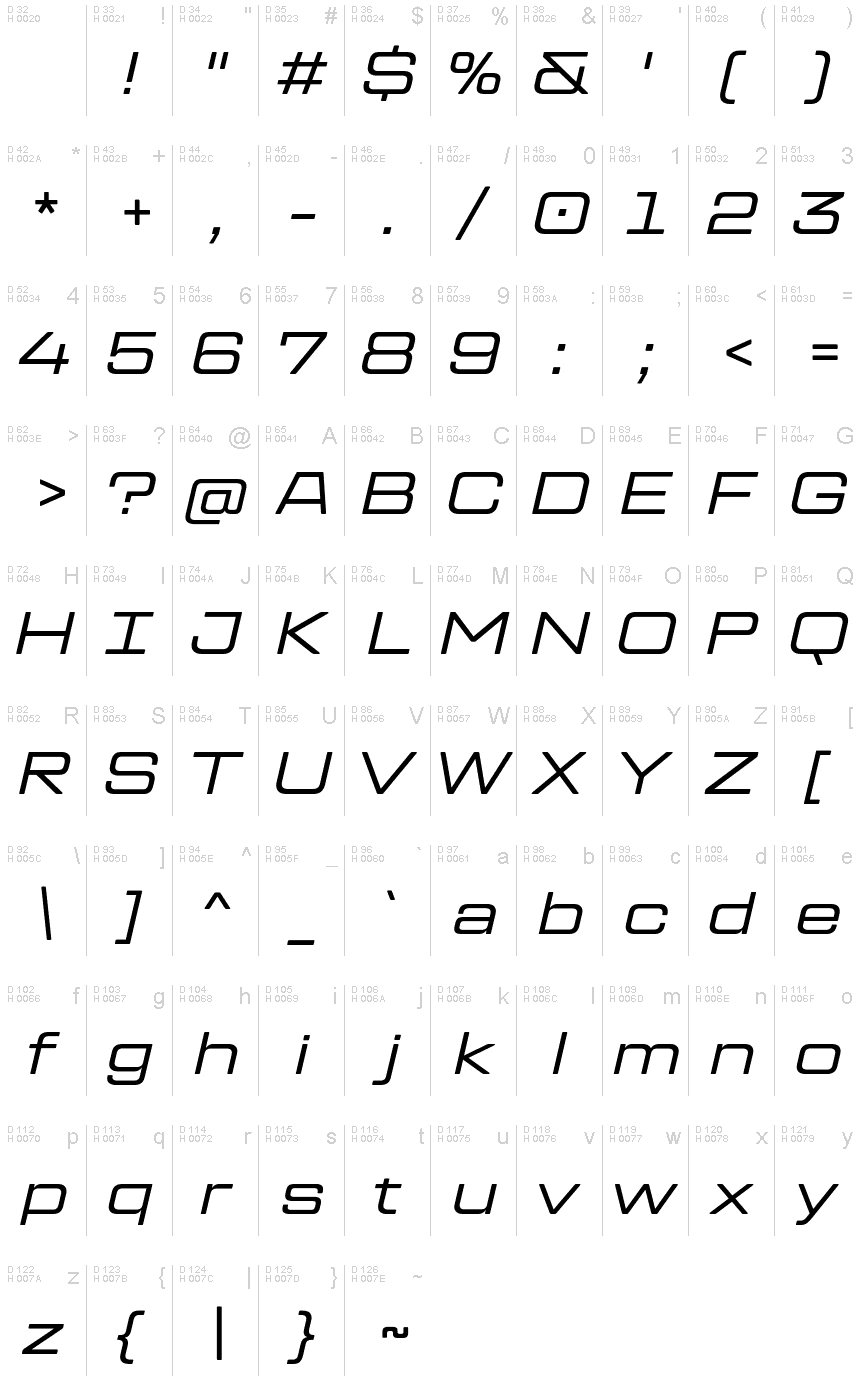
TT Lakes Neue Trl Exp It
TT Lakes Neue Exp It is a modern and versatile sans serif font from TypeType Foundry. Its semi-light weight and extra-expanded width make it perfect for projects that require a clean, spacious look while retaining legibility. Use it for branding, editorial design, and website layouts to create a contemporary feel. The font's balanced proportions and sharp edges give it a professional edge, ideal for corporate presentations or product packaging. Explore its potential in minimalist designs or combine with other typefaces to create unique combinations that stand out. TT Lakes Neue Exp It is an excellent choice for designers seeking a fresh approach to typography.